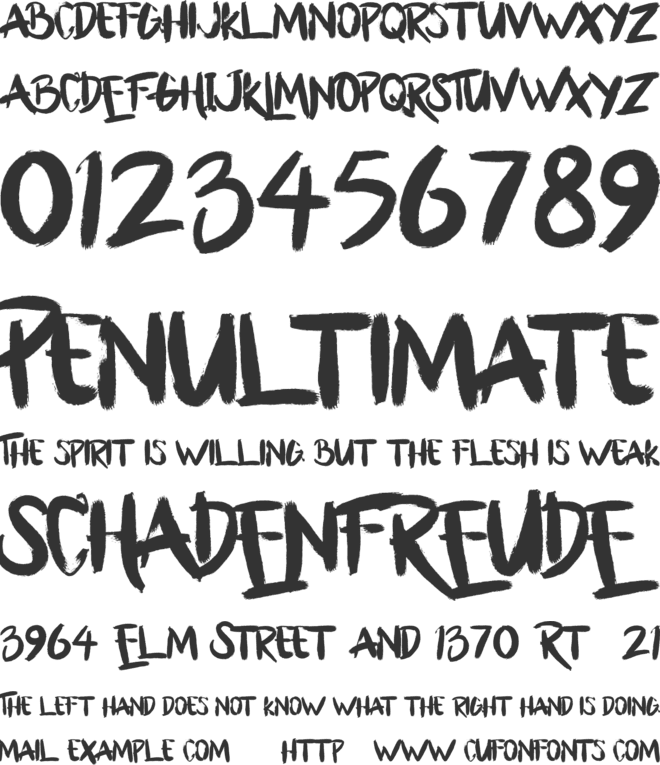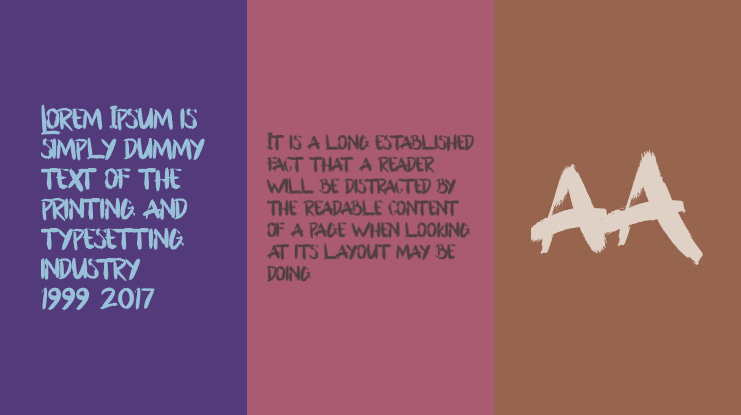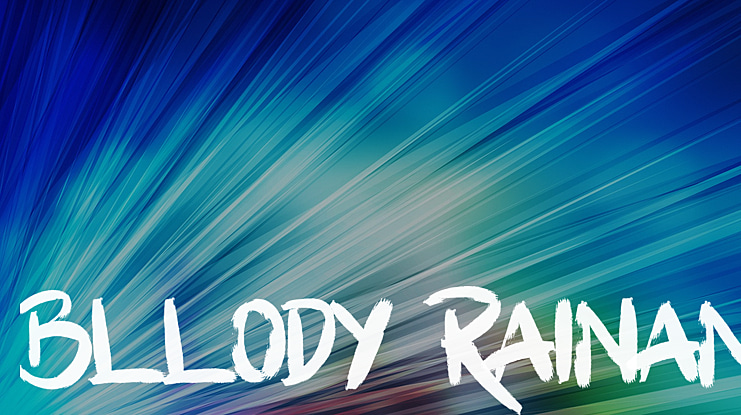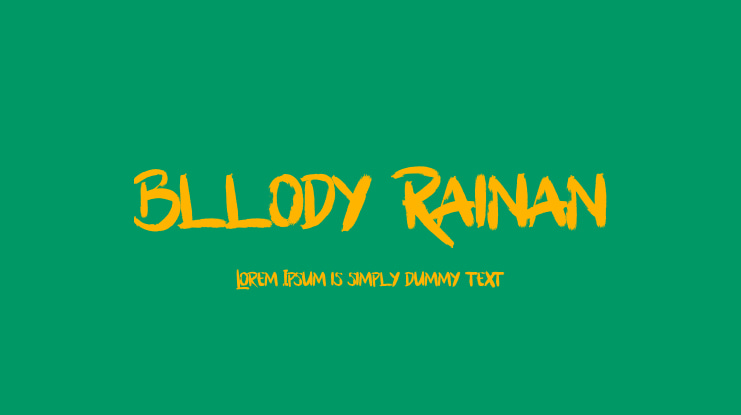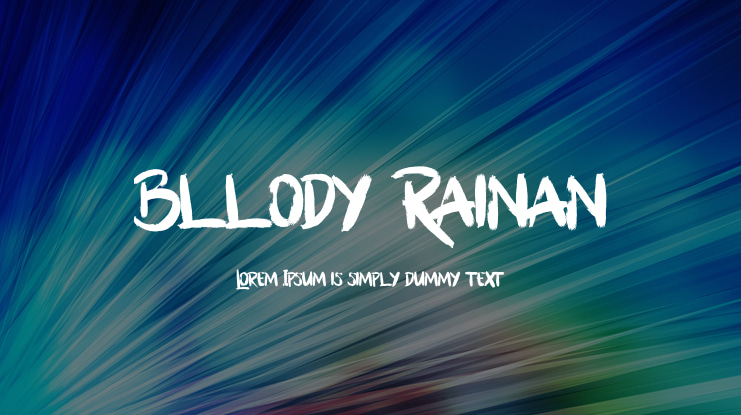
Bllody Rainan Font
Bllody Rainan is a brush font with 2 style. suitable to create any branding, product packaging, invitation, qoutes, t-shirt, label poster etc.Hello, and thank you for downloading this font. This font is demo version.If you want download full version? please click the link below. and visit my store for more great fonts : www.fontspring.com/foundry/madededuk (https://www.fontspring.com/foundry/madededuk) sellfy.com/madeDeduk (https://sellfy.com/madeDeduk) fontbundles.net/anggunsuandewi (https://fontbundles.net/anggunsuandewi) for donation are very appreciated :) account paypal  (mailto:). If you need anything else just shoot me an email at:  (mailto:) find more previews on my Instagram here : www.instagram.com/acekelgondolayu/?hl=en (https://www.instagram.com/acekelgondolayu/?hl=en)